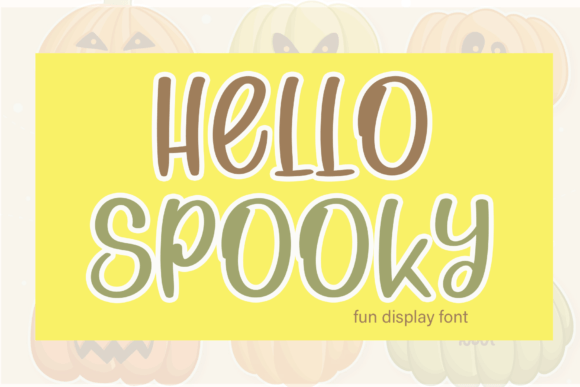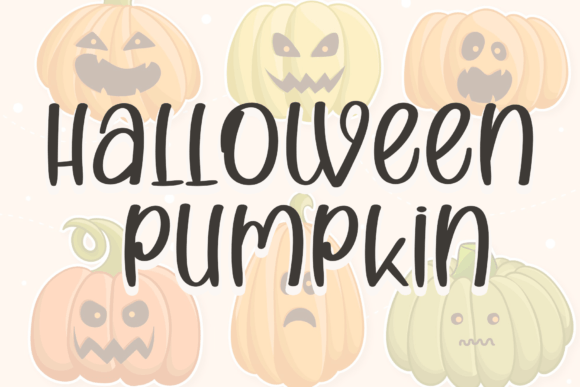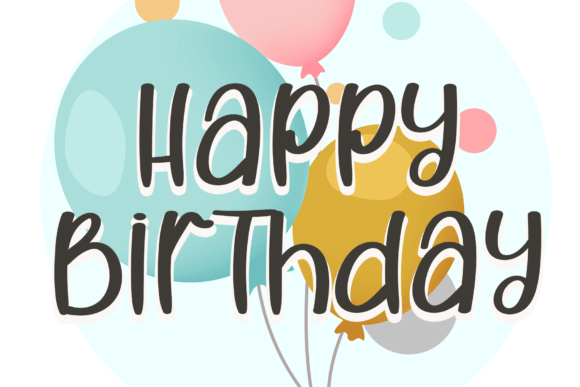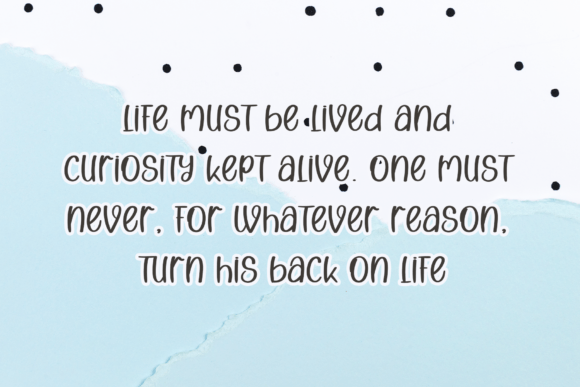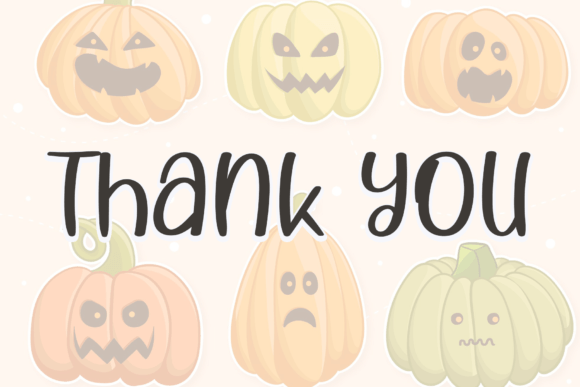
Hello Spooky Font
“Hello Spooky” is a bold and modern display font designed to give your creations a distinctive and eye-catching appearance. With its expertly crafted design, this font has the potential to elevate your creative ideas and make them stand out.
One of the standout features of “Hello Spooky” is its bold and contemporary style, which makes it ideal for projects that demand a strong visual impact. The font’s bold letterforms are designed to capture attention and leave a lasting impression on your audience.
This font’s versatility allows it to be applied to a wide range of design contexts. “Hello Spooky” can be used in posters, banners, logos, branding materials, product packaging, and more, making it a versatile choice for projects that require a bold and modern aesthetic.
Visualize using “Hello Spooky” for a poster promoting a Halloween event and how it instantly grabs the viewer’s attention with its bold and modern look. Picture incorporating this font into your branding materials, creating a unique and memorable identity for your business or project. When you choose “Hello Spooky” for your projects, you’re selecting a font that can help your creative ideas make a significant impact.
In conclusion, “Hello Spooky” is more than just a font; it’s a design asset that adds a bold and modern touch to your creative projects. Its distinctive style and eye-catching design make it an ideal choice for a wide range of applications, particularly those where a strong visual impact is desired. Embrace “Hello Spooky” as a font that takes your creative ideas to the next level, making them look out of this world and truly unforgettable.